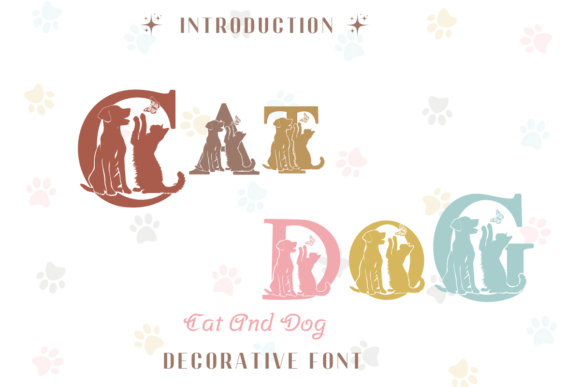
The Purrfect Typeface: A Deep Dive into the Cat and Dog Font
I’ll never forget the moment I stumbled upon the Cat and Dog font while working on a branding project for a local pet shop. I was on a mission to find the perfect typeface that would capture the playful, yet elegant essence of the business. As I scrolled through my font library, I came across this unique and enchanting decorative font that ingeniously integrates silhouettes of cats and dogs directly into the structure of the capital letters. It was love at first sight! 🐾
As a designer, I’m always on the lookout for typefaces that can elevate my projects and make them stand out. Here’s what I love about the Cat and Dog font:
- ✨ Unique and creative design that combines animal silhouettes with letterforms
- ✅ Elegant and sophisticated, yet playful and whimsical
- ✅ Perfect for pet-related projects, such as pet shop branding, animal rescue logos, and veterinary clinic signage
- ✅ Works beautifully for crafting projects, nursery decor, unique wedding invitations, and personalized gifts
While the Cat and Dog font is a stunning addition to any project, there are a few quirks to keep in mind:
- ⚠️ Limited to capital letters, which may limit its use for longer texts
- 🤔 May not work well for smaller font sizes or body text
The Story Behind the Cat and Dog Font
The Cat and Dog font was designed with pet lovers in mind. The creator, a passionate animal enthusiast, wanted to craft a typeface that would celebrate the beauty and companionship of our furry friends. By combining elegant letterforms with playful animal silhouettes, the font achieves a perfect balance of sophistication and whimsy.
| Q: Is the Cat and Dog font suitable for body text? | A: While the Cat and Dog font is stunning, it’s best suited for display use, such as titles, headings, and short texts. |